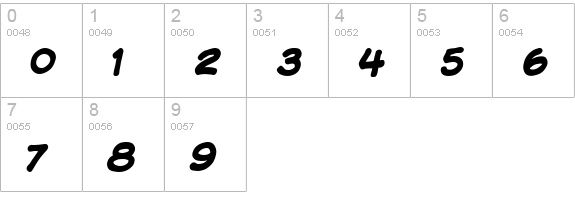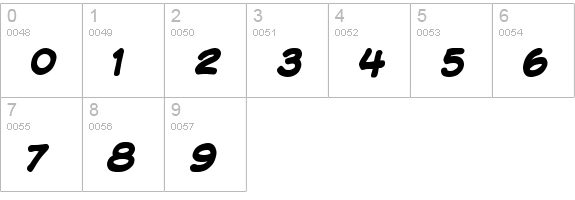
VTCKomixationCapsBold Font Details
VTCKomixationCapsBold is a captivating, bold font that effortlessly combines a playful, comic book aesthetic with a touch of modernity. Its distinctive, thick strokes and exaggerated letterforms make it a perfect choice for eye-catching headlines, attention-grabbing logos, or any design project that requires a bold and energetic look. This font allows for endless creative possibilities, as it effortlessly captures the essence of fun, excitement, and adventure. Whether you're designing a poster for a thrilling event, creating a captivating comic strip, or adding a touch of boldness to your branding, VTCKomixationCapsBold is the ideal font to make your designs stand out from the crowd. One of the greatest aspects of VTCKomixationCapsBold is that it is freely available to download at FontsMarket.com. This means that you can easily access and utilize this incredible font without any restrictions or limitations. By offering this font for free, the creators have made it accessible to designers of all levels, empowering them to bring their visions to life without breaking the bank. With its boldness, playfulness, and availability, VTCKomixationCapsBold has quickly become a favorite among designers who are seeking a font that exudes energy and creativity. Its versatility makes it suitable for a wide range of design projects, from print materials to digital media, ensuring that your message will be delivered with impact and style. So, if you're looking to inject some vibrancy and excitement into your designs, look no further than VTCKomixationCapsBold. Download it for free at FontsMarket.com and take your designs to new heights with this bold and captivating font.